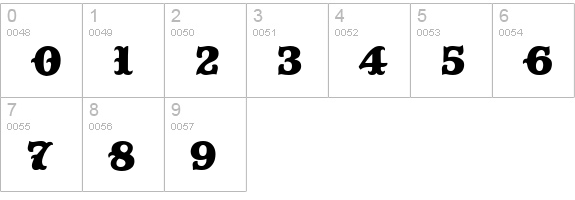
Big Top Font Details
Introducing Big Top font, a playful and whimsical typeface that captures the essence of a circus big top tent. This font features bold and exaggerated letterforms that exude a sense of fun and excitement. Perfect for projects that require a touch of whimsy and creativity, Big Top font is sure to make your designs stand out. The best part? Big Top font is available for free download at FontsMarket.com. Simply visit the website and add this delightful font to your collection without any cost. Whether you're working on a poster, invitation, or branding project, Big Top font will add a touch of circus magic to your designs. Download it today and let your creativity shine with this charming and unique typeface.